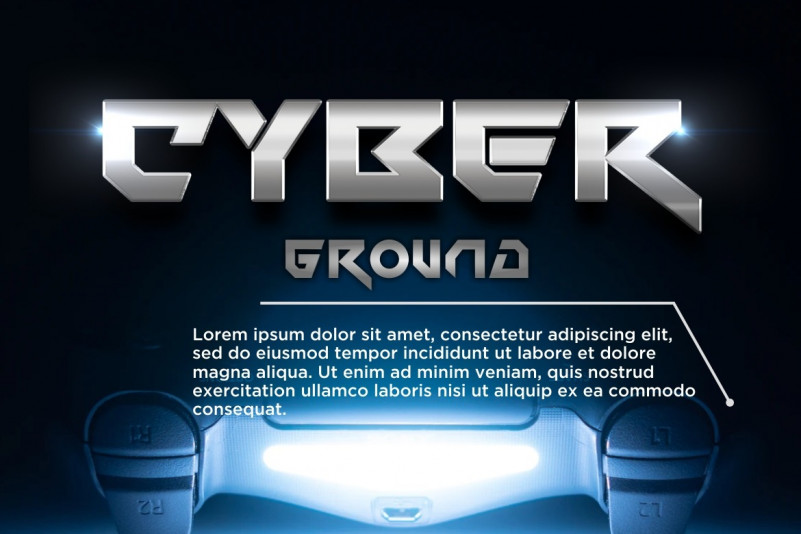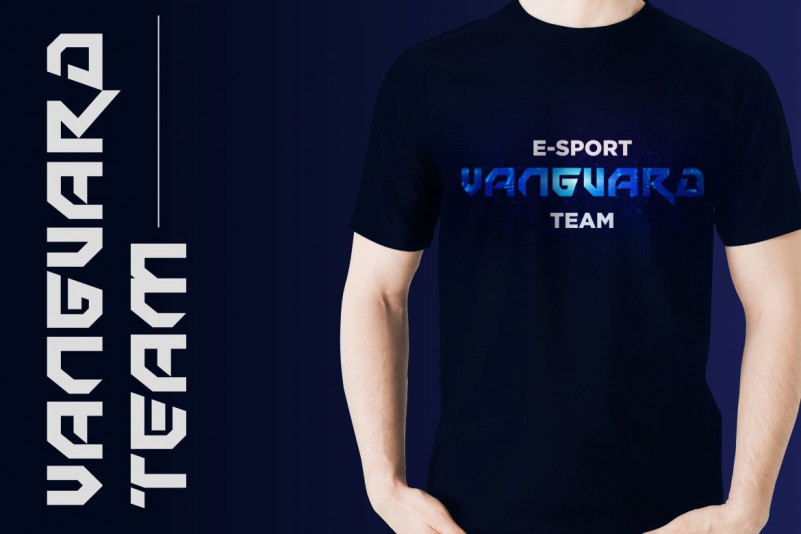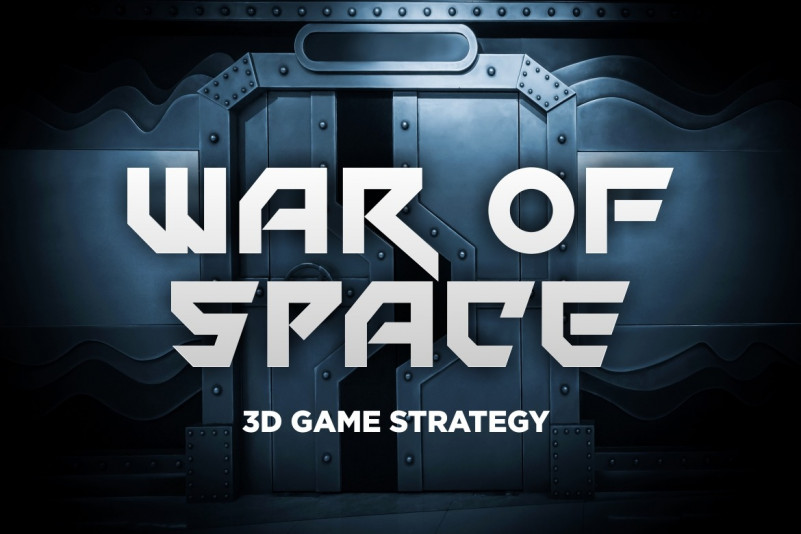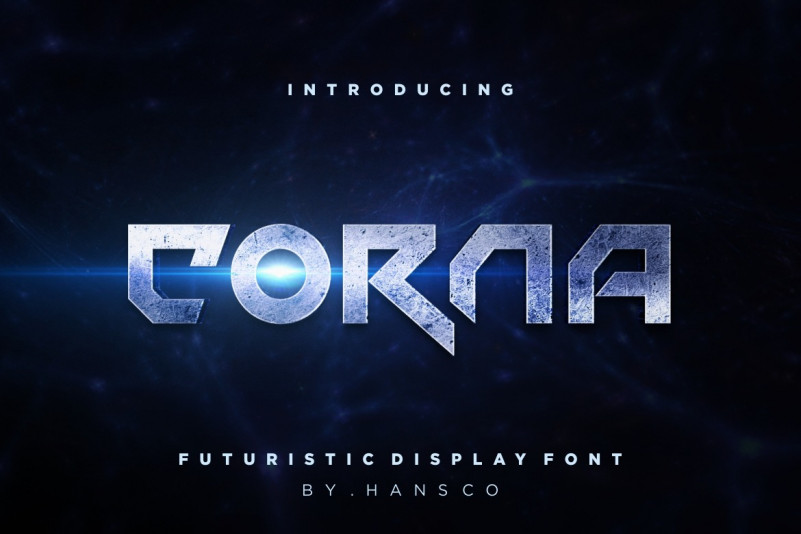
Corna Display Font
It’s a modern bold display font manufactured by HansCo. The font is clean, sharp, and unique. Fright Night is suitable for posters, movie titles, billboards, branding, business card, and much more.